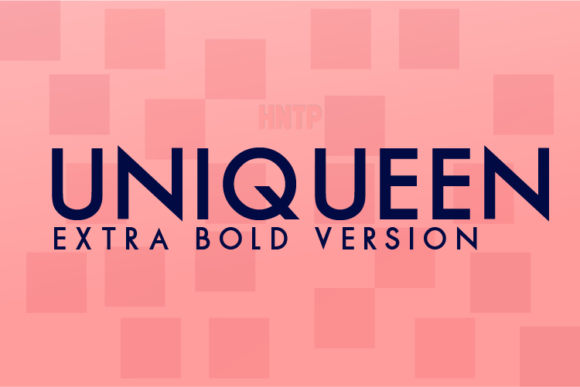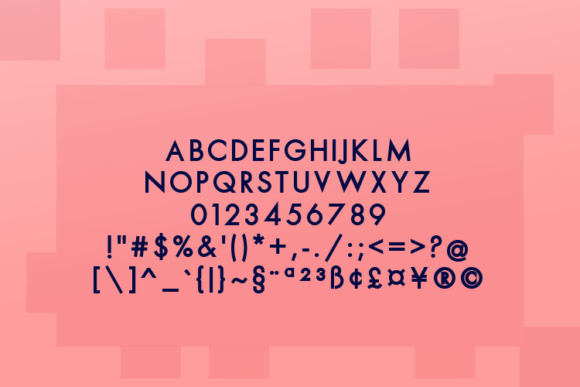
HomeSans Serif FontsUniqueen Extra Bold Font Sans Serif Fonts Uniqueen Extra Bold Font FacebookXPinterestWhatsApp Uniqueen Extra Bold Fonts 1 of 2 About Uniqueen Extra Bold Font Uniqueen is a geometric sans font with roman proportions. It has a serious but timeless look and makes an ideal font for corporate publishing, branding, wayfinding and complex technical information systems. DOWNLOAD ON CREATIVE FABRICAThis font is sold and delivered by Creative Fabrica. Font Canyon may earn a commission if you buy through this link. People also explored Mocca Font I Love You Font Romantic Rainbow Font Breakbeat BTN Appledorn Font Sunflower Font Hazted Font Swan Font Eden Font 622 0 TagsUniqueen Extra Bold Font Previous articleUniqueen Black FontNext articleBellezza Extra Black Font LEAVE A REPLY Cancel reply Comment: Please enter your comment! Name:* Please enter your name here Email:* You have entered an incorrect email address! Please enter your email address here Website: Save my name, email, and website in this browser for the next time I comment. Personal Use Free Loving You Personal Use Free Read more about this font Alligator Font Personal Use Free Read more about this font Bridgetown Font Personal Use Free Read more about this font Burgie Personal Use Free Read more about this font BLOG Free vs Paid Fonts: Why Investing in Premium Fonts Is Worth It Free vs Paid Fonts: Why Premium Fonts Are Worth It in 2025 The debate of free vs paid fonts continues in the design world. While... Top 10 Handwritten Fonts That Elevate Your Designs Modern Sans-Serif Fonts That Brands Love in 2025 The 10 Best Handwriting Fonts to Add Personality to Your Designs